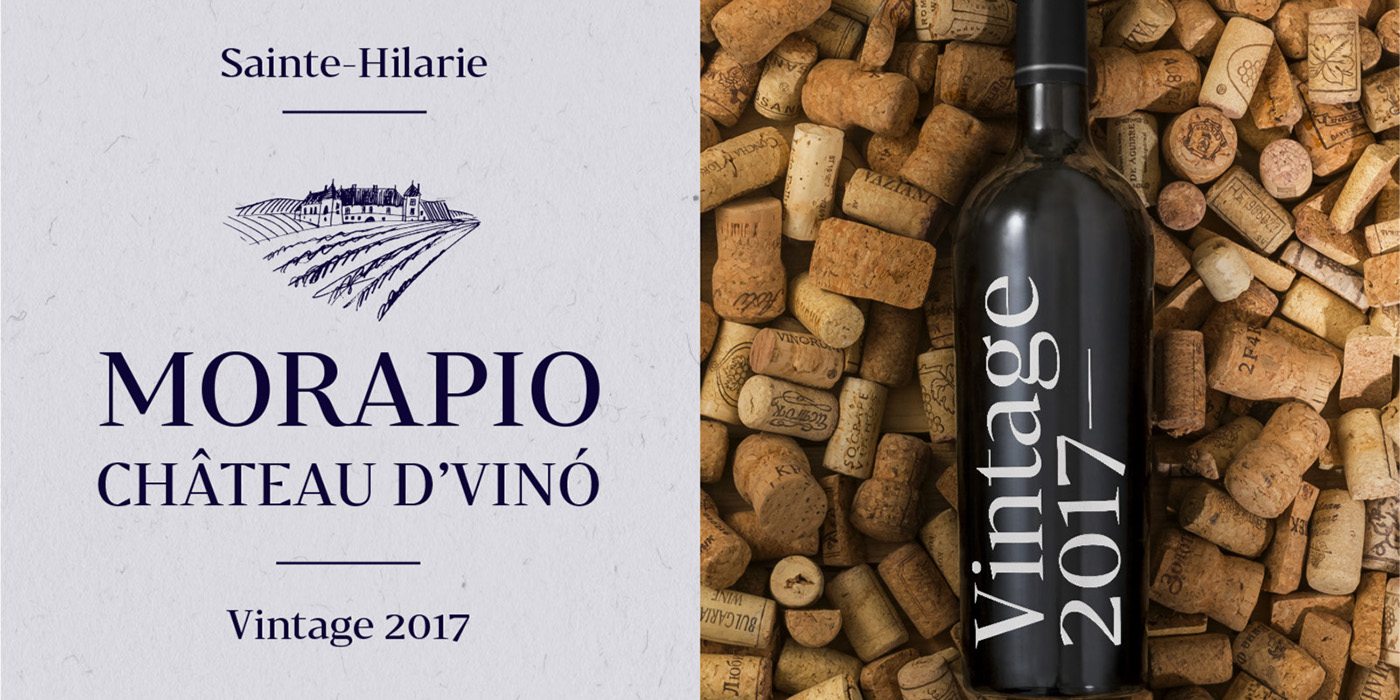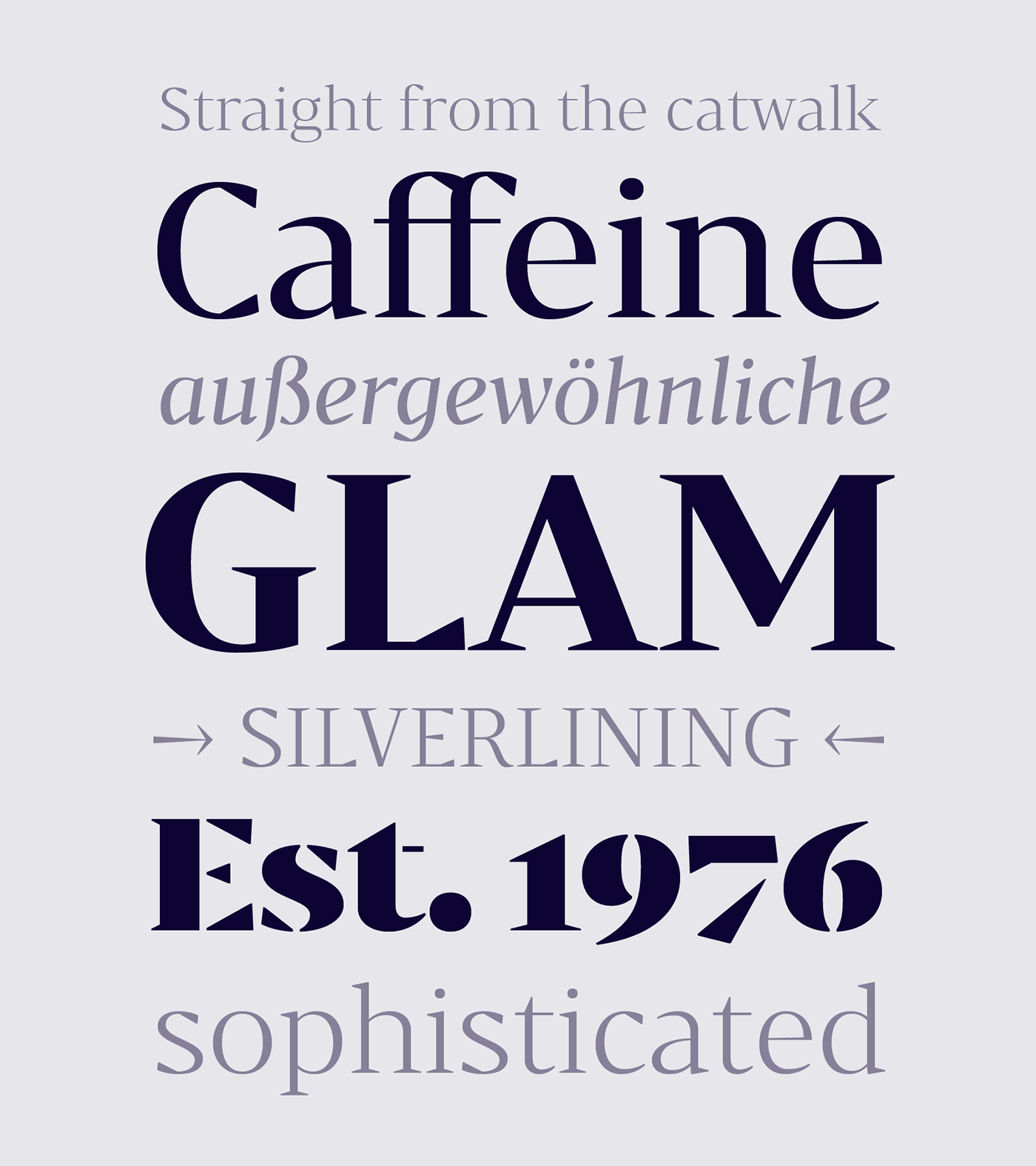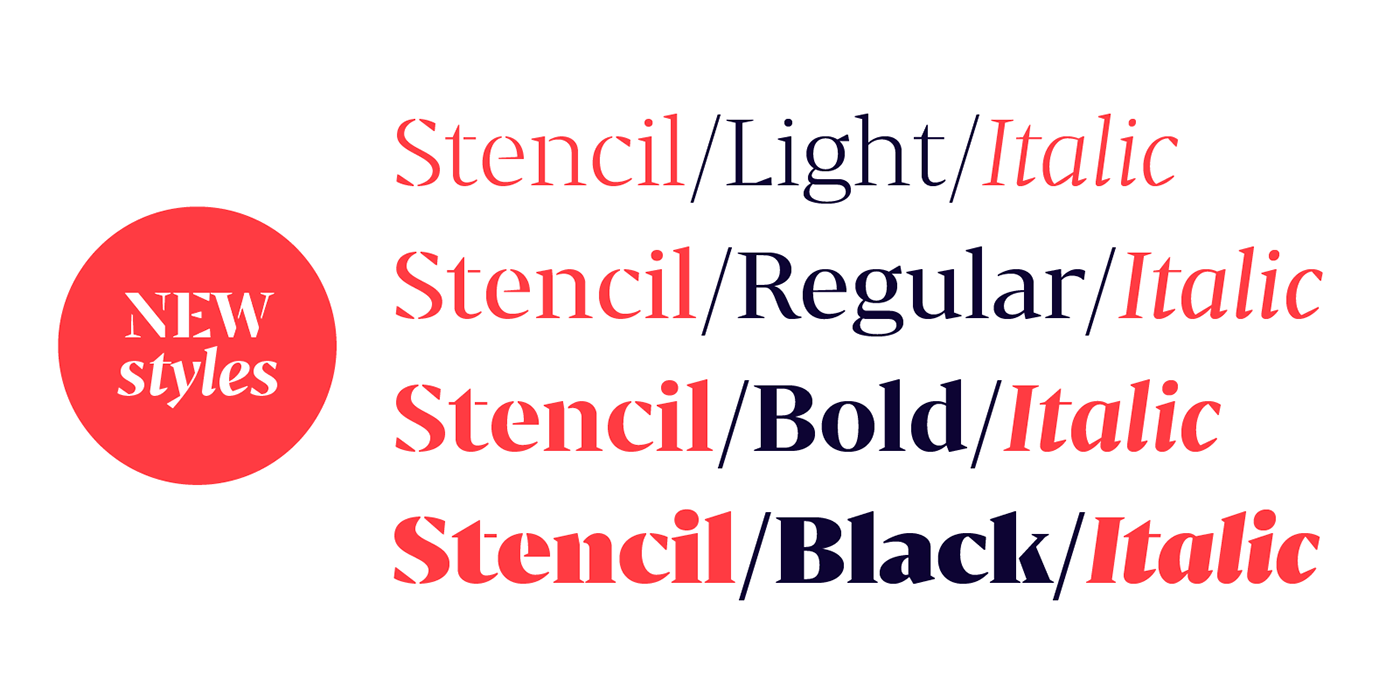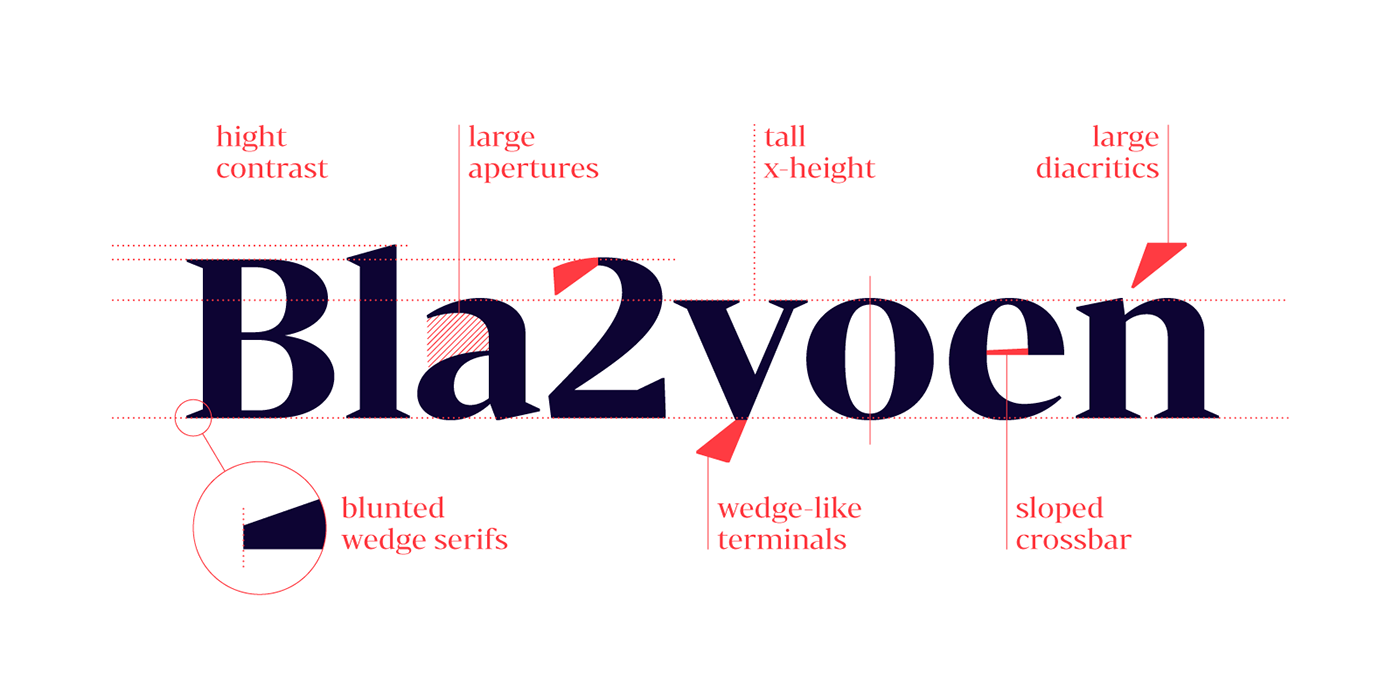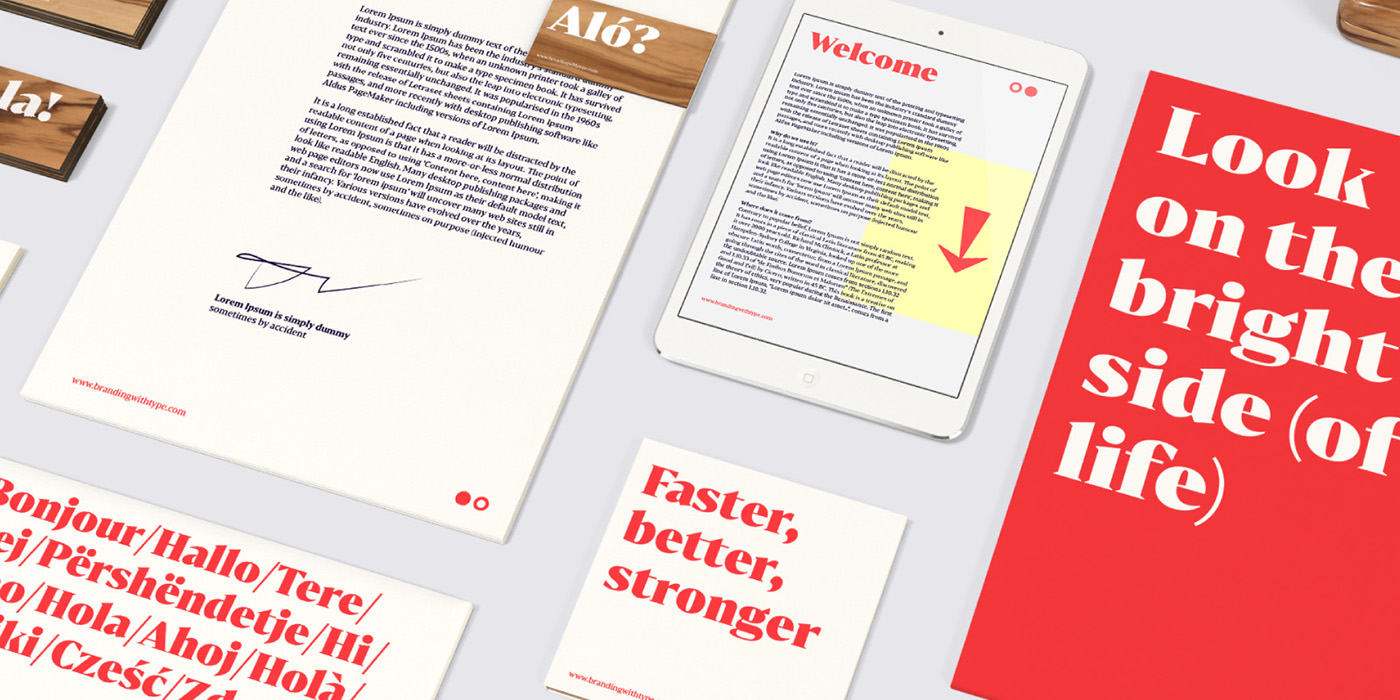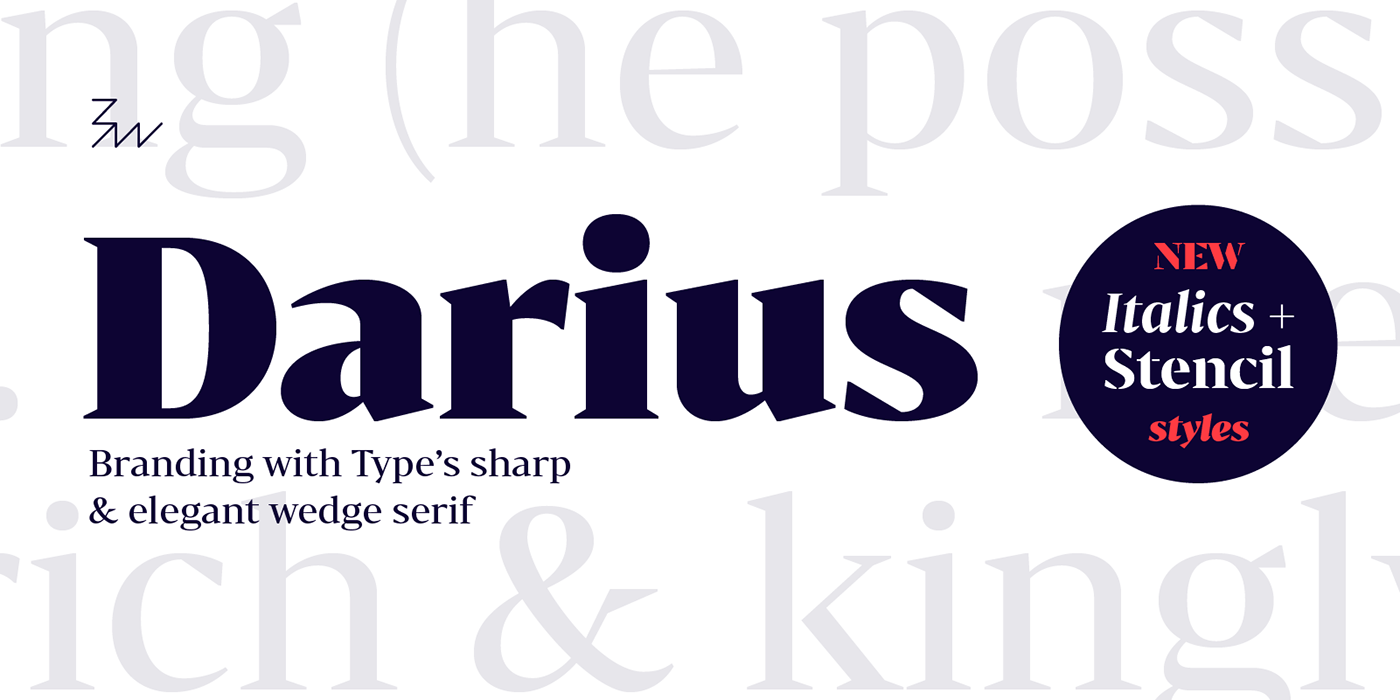
Bw Darius
Bw Darius is an elegant wedge serif typeface, halfway between the transitional and didone genres, with a sharper approach to terminals without falling on the stiffness of the didones. The wide skeleton, modern proportions and high contrast, all contribute to the opulent personality of this font.
Bw Darius comes in 4 weights (from a delicate Light to a robust and sturdy Black) with matching true italics and a stencil version, allowing brands to use the different voice tonalities within the same style. Its tall x-height and open apertures makes it fit for display but also body text purposes, performing well both on screen and printed.